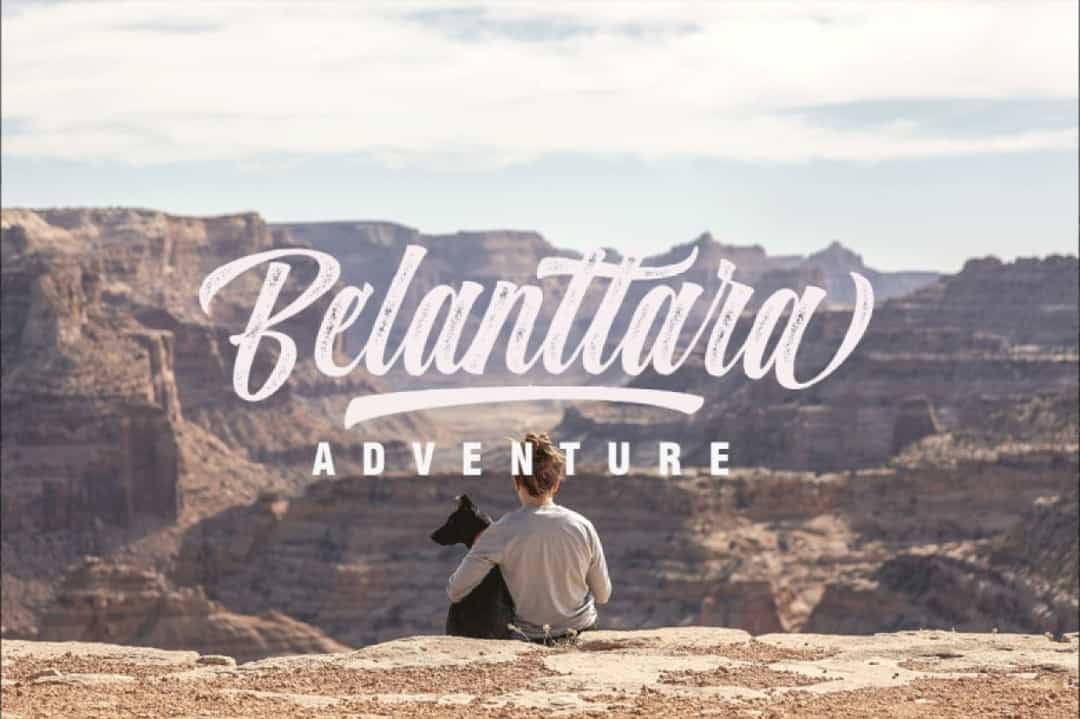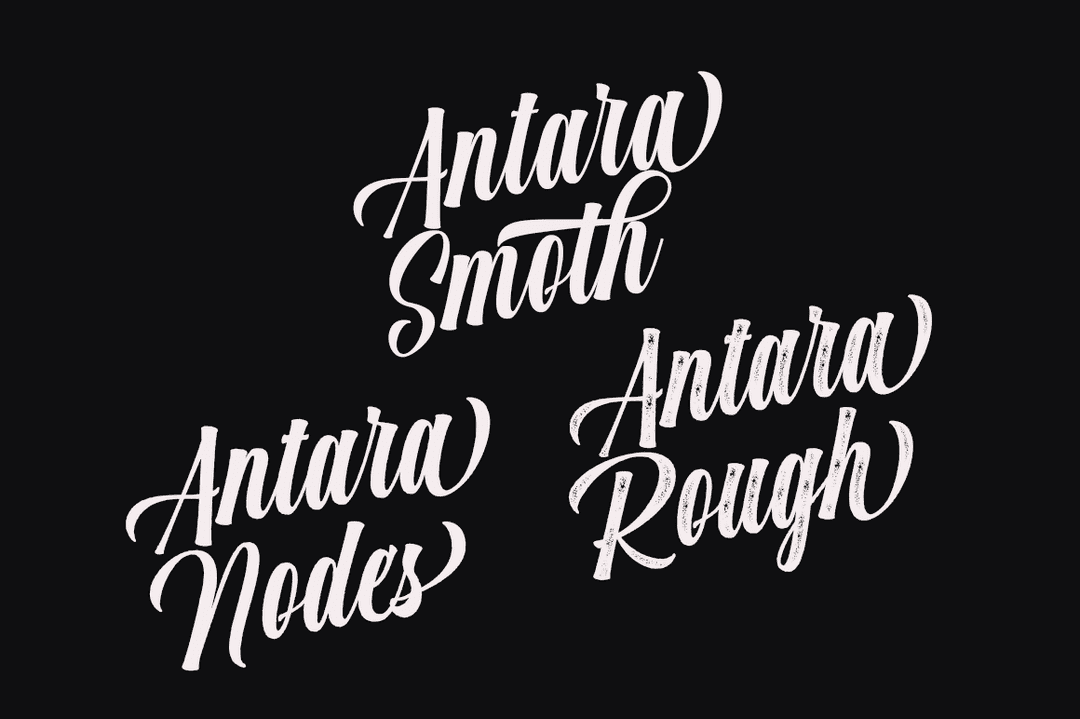
Antara is an elegant handwritten brush font designed to bring life and excitement to headlines and logotypes alike. Featuring strong yet confident strokes that exude nostalgia in each line of text, you have easy access to all glyphs as well as swashes incorporated within Antara! PUA-encoding means you have full access to Antara’s features!